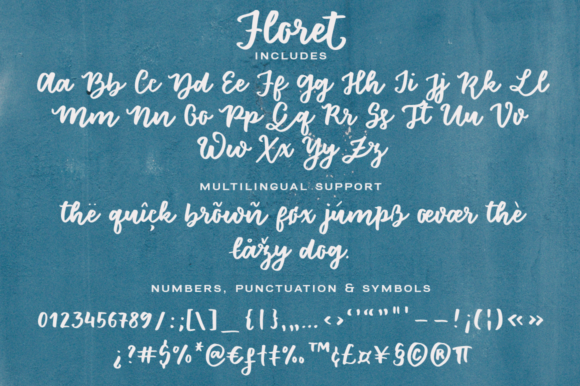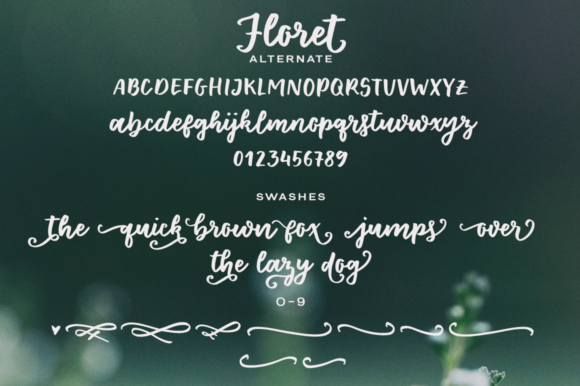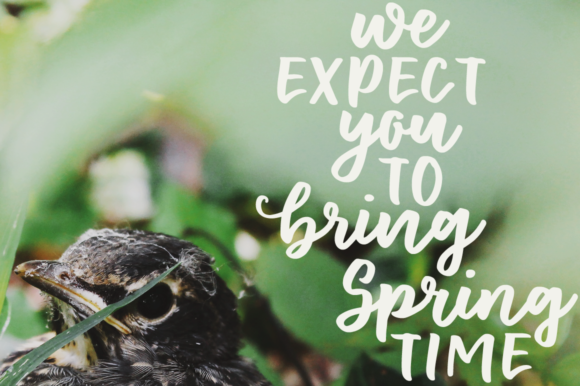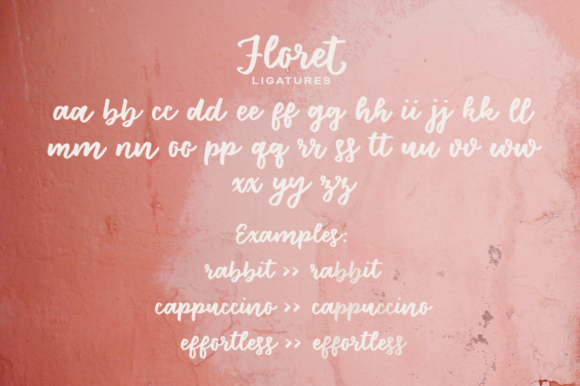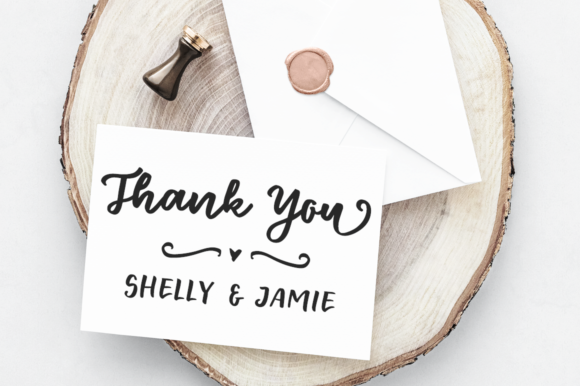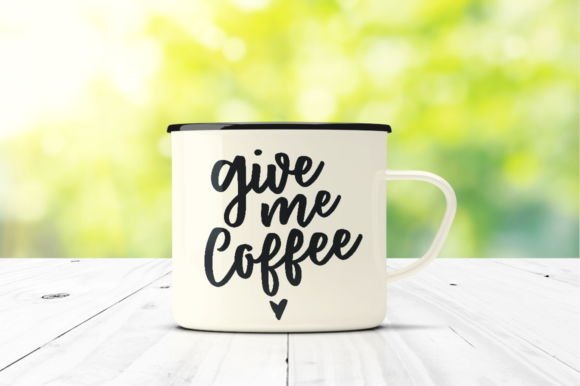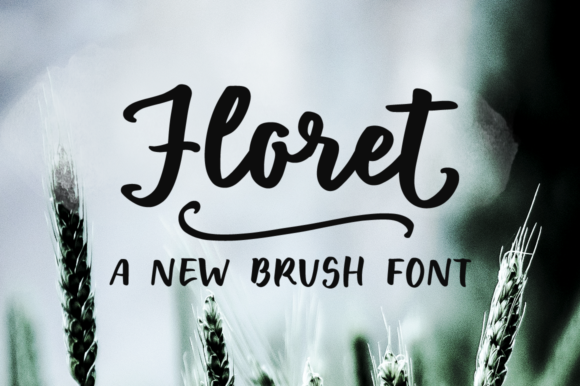
Introducing Floret Font: The Epitome of Elegance and Sophistication
In the realm of typography, few fonts manage to capture the essence of elegance and sophistication as effortlessly as Floret Font. This exquisite script font has been meticulously crafted to add a touch of refinement and luxury to any project it is employed in. Whether you’re a designer looking to elevate your branding projects, a crafter seeking to add a personal touch to your handmade goods, or simply someone who appreciates the beauty of fine typography, Floret Font is sure to captivate your imagination.
The Characteristics of Floret Font
Floret Font is distinguished by its fashionable and delicate appearance. Its script style is characterized by fluid, cursive lines that exude a sense of grace and poise. The font’s design is highly legible, making it suitable for a wide range of applications, from logos and branding materials to labels, watermarks, and more. The elegance of Floret Font lies in its ability to convey a sense of sophistication and refinement, making it an ideal choice for projects that demand a high level of aesthetic appeal.
One of the standout features of Floret Font is its versatility. This font is not limited to a specific genre or industry; rather, it can be seamlessly integrated into a diverse array of projects. Here are some of the many ways you can utilize Floret Font:
• Logos and Branding Projects: Create a lasting impression with a logo that embodies elegance and sophistication. Floret Font is perfect for businesses and brands aiming to convey a sense of luxury and refinement.
• Labels and Packaging: Add a touch of class to your product labels and packaging. Floret Font’s delicate appearance makes it an excellent choice for businesses looking to differentiate their products through unique and eye-catching typography.
• Photography and Watermarks: Enhance your photographs with elegant watermarks that protect your work while adding a touch of sophistication. Floret Font’s legibility and aesthetic appeal make it an ideal choice for photographers seeking to brand their images.
• Special Events: Whether you’re planning a wedding, a gala, or any other special event, Floret Font can be used to create stunning invitations, programs, and decor that reflect the elegance of the occasion.
Why Choose Floret Font?
In a world where first impressions are crucial, selecting the right font for your project can make all the difference. Here are some compelling reasons to choose Floret Font:
• Unique and Memorable: Floret Font’s distinctive style ensures that your project stands out from the crowd. Its elegance and sophistication are sure to leave a lasting impression on your audience.
• Highly Versatile: As mentioned earlier, Floret Font’s versatility is one of its most significant advantages. It can be used across a wide range of projects, making it a valuable addition to any designer’s or crafter’s toolkit.
• Easy to Read: Despite its delicate appearance, Floret Font is highly legible, ensuring that your message is communicated clearly and effectively.
Floret Font is more than just a script font; it’s a statement of elegance and sophistication. Its fashionable and delicate design makes it an ideal choice for designers and crafters seeking to add a touch of refinement to their projects. With its versatility, legibility, and aesthetic appeal, Floret Font is sure to become a go-to choice for anyone looking to elevate their design work. Whether you’re working on logos, branding projects, labels, photography, watermarks, or special events, Floret Font is the perfect companion to help you achieve your creative vision.
Get Ready to Elevate Your Designs with Floret Font
Ready to experience the elegance and sophistication that Floret Font has to offer? Explore the possibilities of this exquisite script font and discover how it can transform your projects. With Floret Font, you can:
• Enhance your branding and marketing materials with a touch of luxury.
• Create stunning visual content that captures the essence of your message.
• Stand out in a crowded market with unique and memorable typography.
Embark on a journey of creative excellence with Floret Font. Let its beauty and elegance shine through in your designs, and watch as your projects are elevated to new heights of sophistication and refinement.